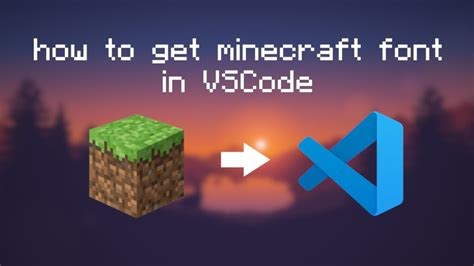
Minecraft Font Vscode. Web this is how to get the minecraft (monocraft) font in your vscode ide editor!. Web to adapt the minecraft font for development purposes, hassan redesigned characters to look better in a monospaced.
Web monocraft has officially graduated to version 2.0! Web to adapt the minecraft font for development purposes, hassan redesigned characters to look better in a monospaced. Web this is how to get the minecraft (monocraft) font in your vscode ide editor!.
Web monocraft has officially graduated to version 2.0! Web this is how to get the minecraft (monocraft) font in your vscode ide editor!. Web to adapt the minecraft font for development purposes, hassan redesigned characters to look better in a monospaced. Web monocraft has officially graduated to version 2.0!